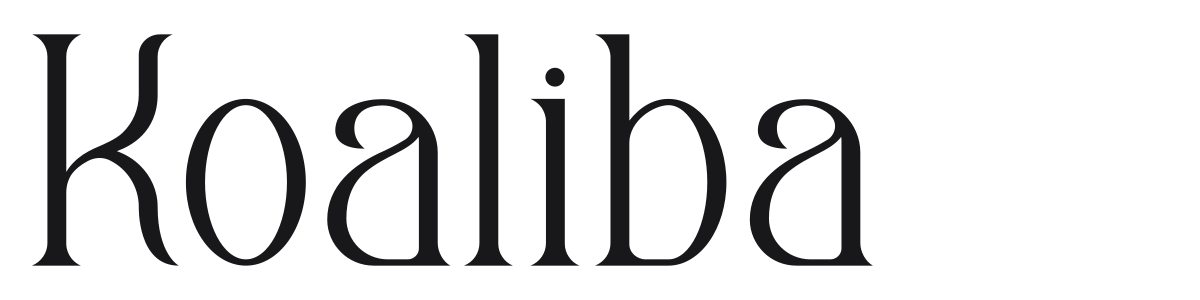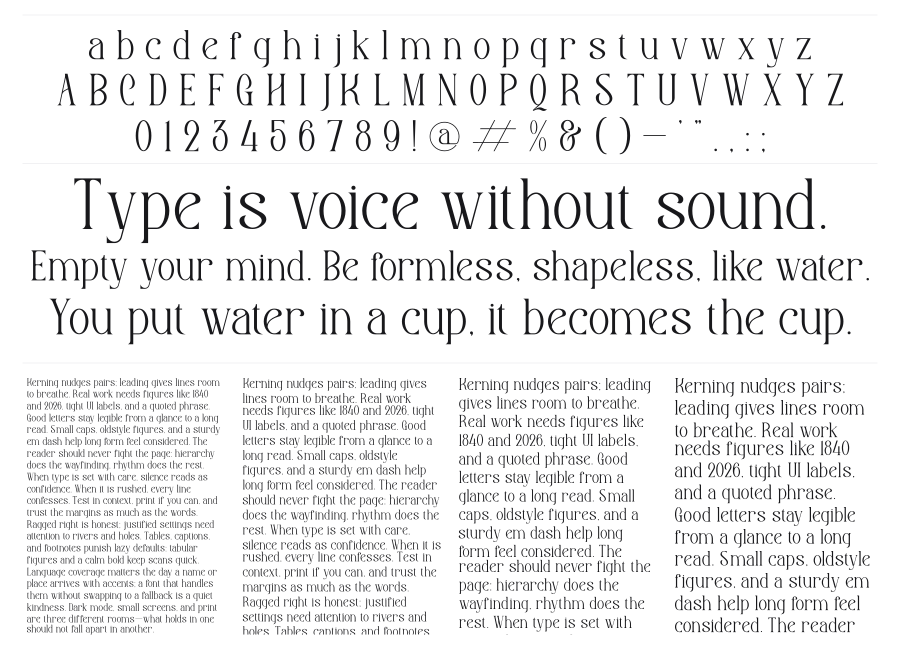
Koaliba
Koaliba is a contemporary high-contrast serif with hairline-thin strokes and open, generously spaced letters. Its mix of bracketed and unbracketed serifs gives it a refined character that sits somewhere between classical Didone tradition and modern editorial design. The extreme stroke contrast makes it shine at large sizes in fashion, beauty, and lifestyle contexts.